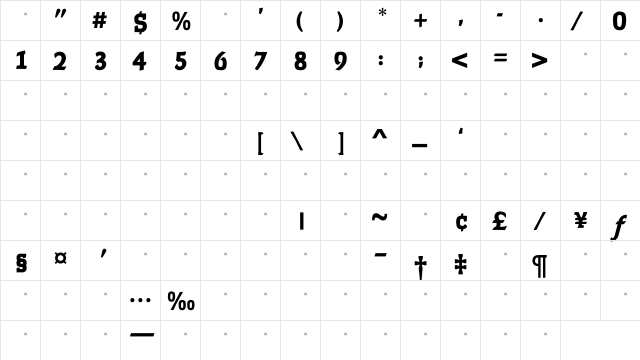
FaustExtraBoldTab Regular
Design Context for FaustExtraBoldTab Typeface
FaustExtraBoldTab takes a measured approach to typography — its balanced proportions and neutral character make it a reliable workhorse for both digital and print work. The heavy weight commands attention and anchors typographic hierarchies.